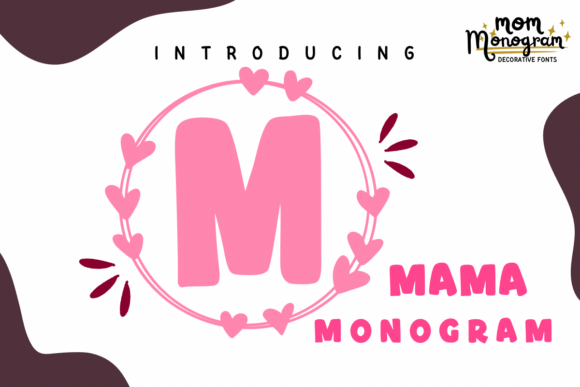
Introducing Monogram Mama Font: A Sweet and Bold Decorative Font for Moms
Are you looking for a unique and stylish font to celebrate Mother’s Day, create personalized gifts, or add a touch of love to your design work? Look no further than the Monogram Mama Font, a beautiful and bold decorative font designed specifically for moms. In this article, we’ll explore the features and benefits of this lovely font, and show you how to make the most of it in your design projects.
What is Monogram Mama Font?
Monogram Mama Font is a sweet and bold decorative font that is perfect for celebrating moms with love and style. Each monogram character is encircled by a wreath of hearts, making it a heartwarming choice for any design project that requires a personal touch. The font is designed to be versatile and can be used for a variety of projects, from Mother’s Day cards and gifts to nursery prints and family-themed SVG crafts.
Key Features of Monogram Mama Font
- Unique Monogram Characters: Each monogram character is encircled by a wreath of hearts, adding a touch of love and elegance to your designs.
- Sweet and Bold Design: The font features a sweet and bold design that is perfect for making a statement in your design projects.
- Versatile: Monogram Mama Font can be used for a variety of projects, from Mother’s Day cards and gifts to nursery prints and family-themed SVG crafts.
Uses for Monogram Mama Font
Monogram Mama Font is a versatile font that can be used for a variety of design projects. Here are some ideas to get you started:
- Mother’s Day Projects: Use Monogram Mama Font to create beautiful Mother’s Day cards, gifts, and decorations.
- Personalized Gifts: Add a personal touch to your gifts with Monogram Mama Font, perfect for baby showers, birthdays, and more.
- Nursery Prints: Create adorable nursery prints with Monogram Mama Font, perfect for decorating a baby’s room.
- Family-Themed SVG Crafts: Use Monogram Mama Font to create family-themed SVG crafts, such as custom signs, banners, and more.
Tips for Using Monogram Mama Font
Here are some tips for using Monogram Mama Font in your design projects:
- Experiment with Colors: Try pairing Monogram Mama Font with different colors and textures to add depth and interest to your designs.
- Mix and Match: Combine Monogram Mama Font with other fonts and graphics to create unique and eye-catching designs.
- Pay Attention to Size: Make sure to adjust the size of Monogram Mama Font to fit your design needs, ensuring that it remains clear and legible.
Benefits of Using Monogram Mama Font
There are many benefits to using Monogram Mama Font in your design projects. Here are a few:
- Adds a Personal Touch: Monogram Mama Font adds a personal touch to your designs, making them more special and meaningful.
- Unique and Eye-Catching: The font’s unique and eye-catching design makes it perfect for standing out in a crowd.
- Versatile: Monogram Mama Font can be used for a variety of design projects, making it a great addition to your font library.
Monogram Mama Font is a beautiful and versatile font that is perfect for celebrating moms with love and style. With its unique monogram characters, sweet and bold design, and ease of use, it’s a great choice for any design project that requires a personal touch. Whether you’re creating Mother’s Day projects, personalized gifts, nursery prints, or family-themed SVG crafts, Monogram Mama Font is sure to add a touch of love and elegance to your designs.
- What is Monogram Mama Font?
- Monogram Mama Font is a sweet and bold decorative font designed to celebrate moms with love and style.